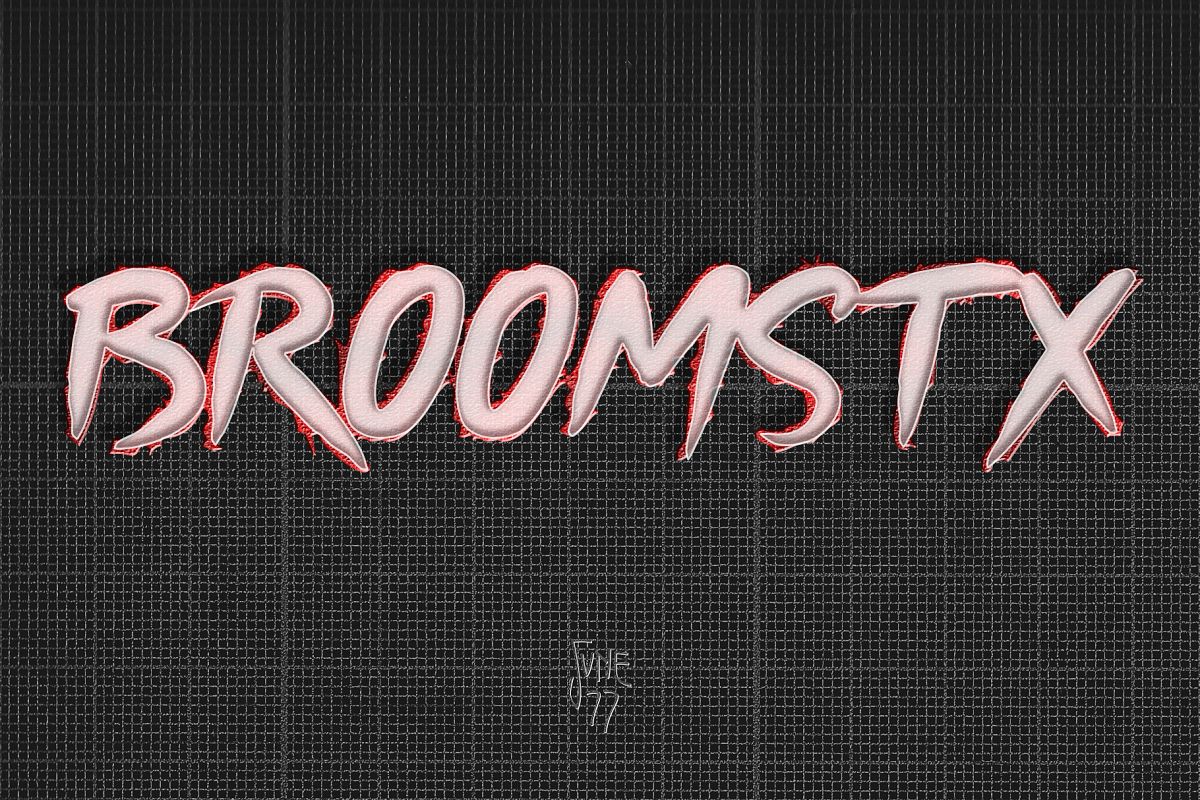
Broomstx -3 Retro 80's Brushes Family
Broomstx
BROOMSTX is an uppercase brush family containing two 80's inspirational brushes:
• Regular clean for a cool retrowave feel
• Beast - the horror teen movie mood from these times.